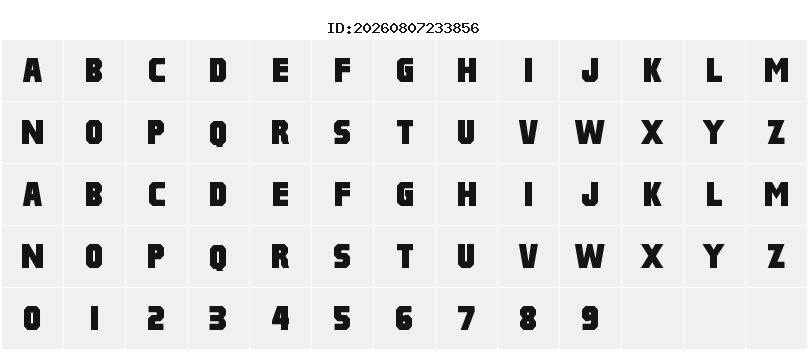
Pulp Fiction M54 Preview
• Font Name: Pulp Fiction M54
• Designer: Mohammed Rahman
• Manufacturer: M54 (justme54s)
About Pulp Fiction M54.ttf
Pulp Fiction M54.ttf is a modern, elegant sans-serif font designed for ultimate readability and visual harmony. Perfect for branding, headlines, web design, and print materials.